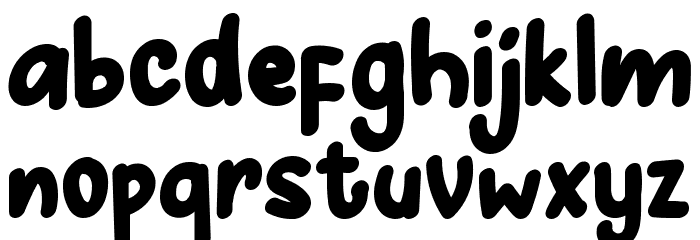
Hunny Bummy Font
This playful and whimsical font features bold, rounded characters with a hand-drawn feel. The uppercase letters are slightly larger and more pronounced, while the lowercase letters maintain a consistent, friendly appearance. The numbers are clear and easy to read, complementing the overall style. Special characters are creatively designed, adding to the font's charm. The font's informal and approachable nature makes it ideal for projects that require a fun and engaging look.
A playful, hand-drawn font with bold, rounded characters.
- Font: Hunny Bummy
- Proposed Projects: Ideal for children's books, playful branding, greeting cards, and casual invitations.
- Category: Handwritten
- Overall Style: Playful